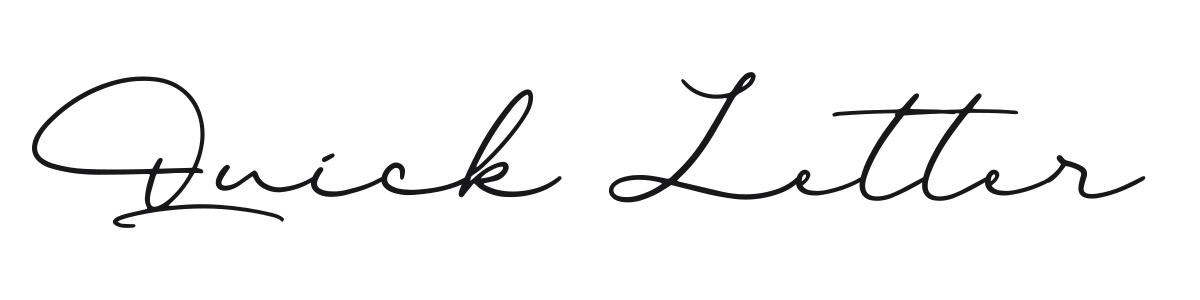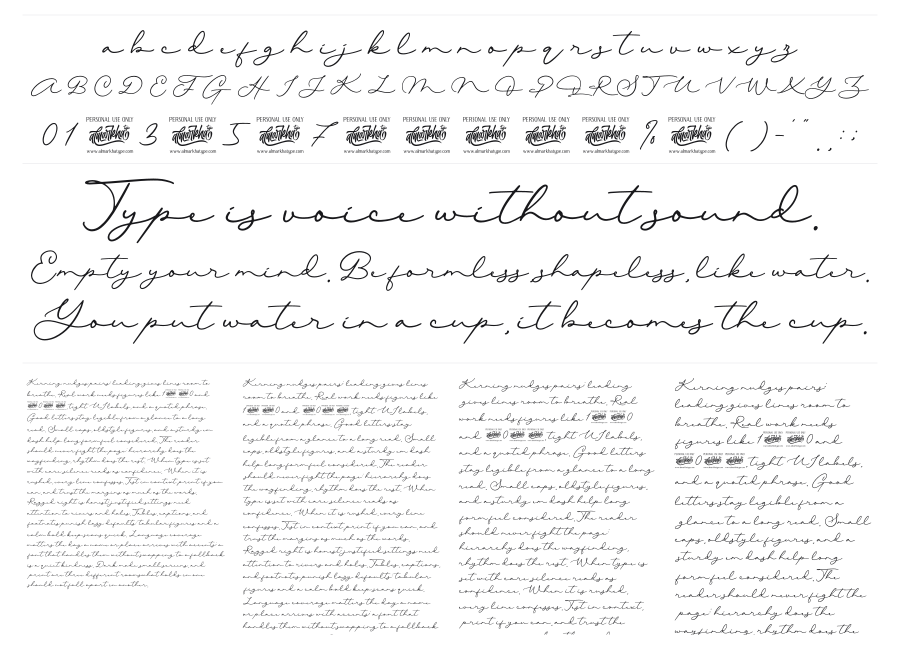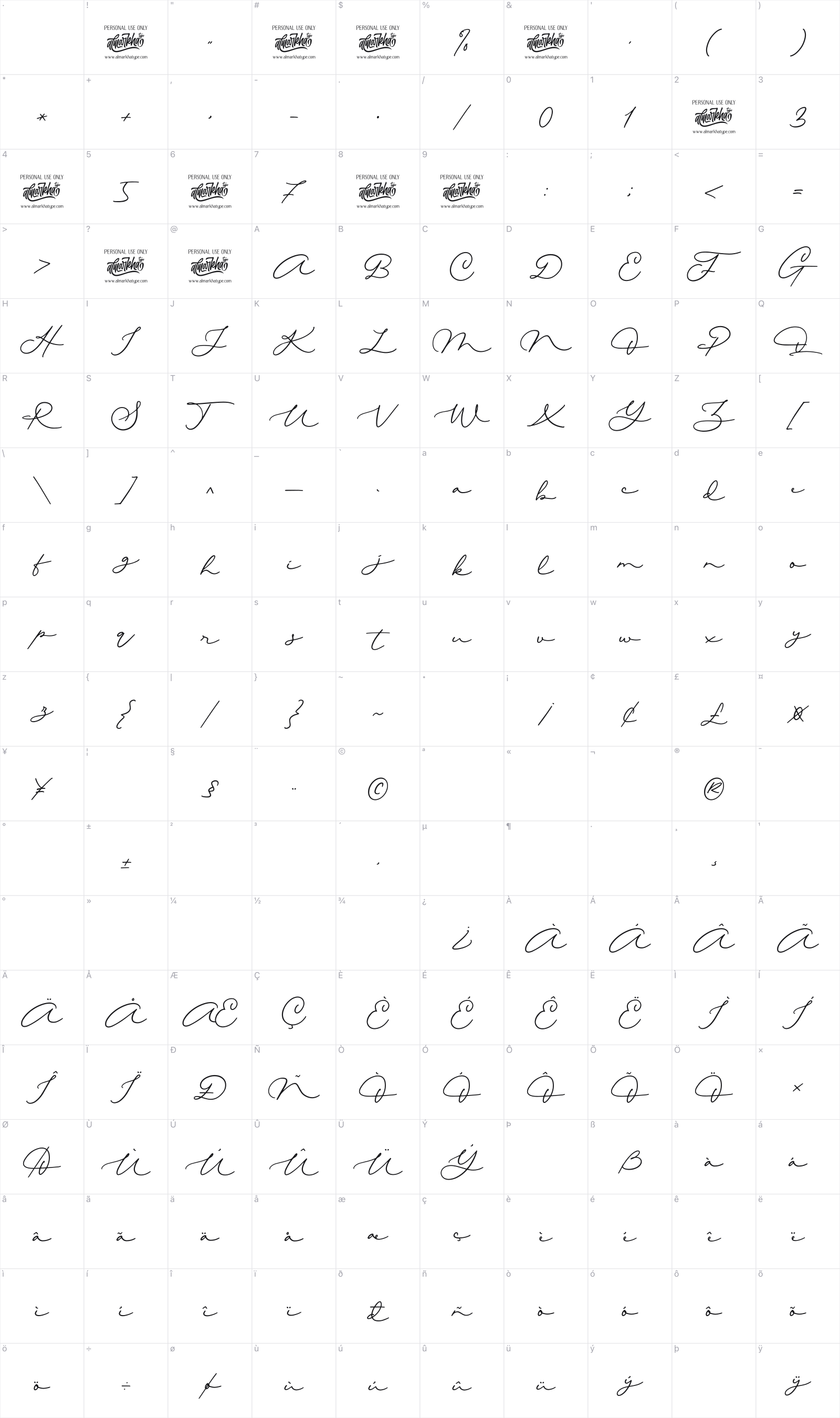
Quick Letter
Quick Letter is a flowing casual script from Almarkhatype Studio with thin, near-monoweight strokes and a natural, unhurried rhythm. Each word moves in a gentle wave, with long connecting strokes that feel like a practiced hand writing quickly with a fine pen. It has the lightness of a personal signature and the polish of a designed typeface.